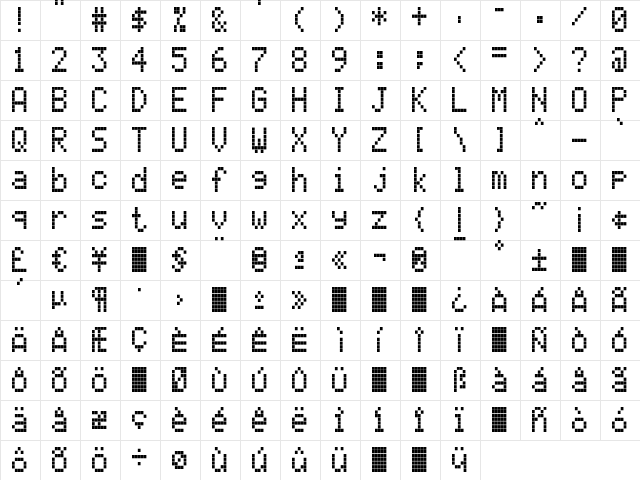
CallEight-Regular Regular
Design Context for CallEight-Regular Typeface
CallEight-Regular takes a measured approach to typography — its balanced proportions and neutral character make it a reliable workhorse for both digital and print work.